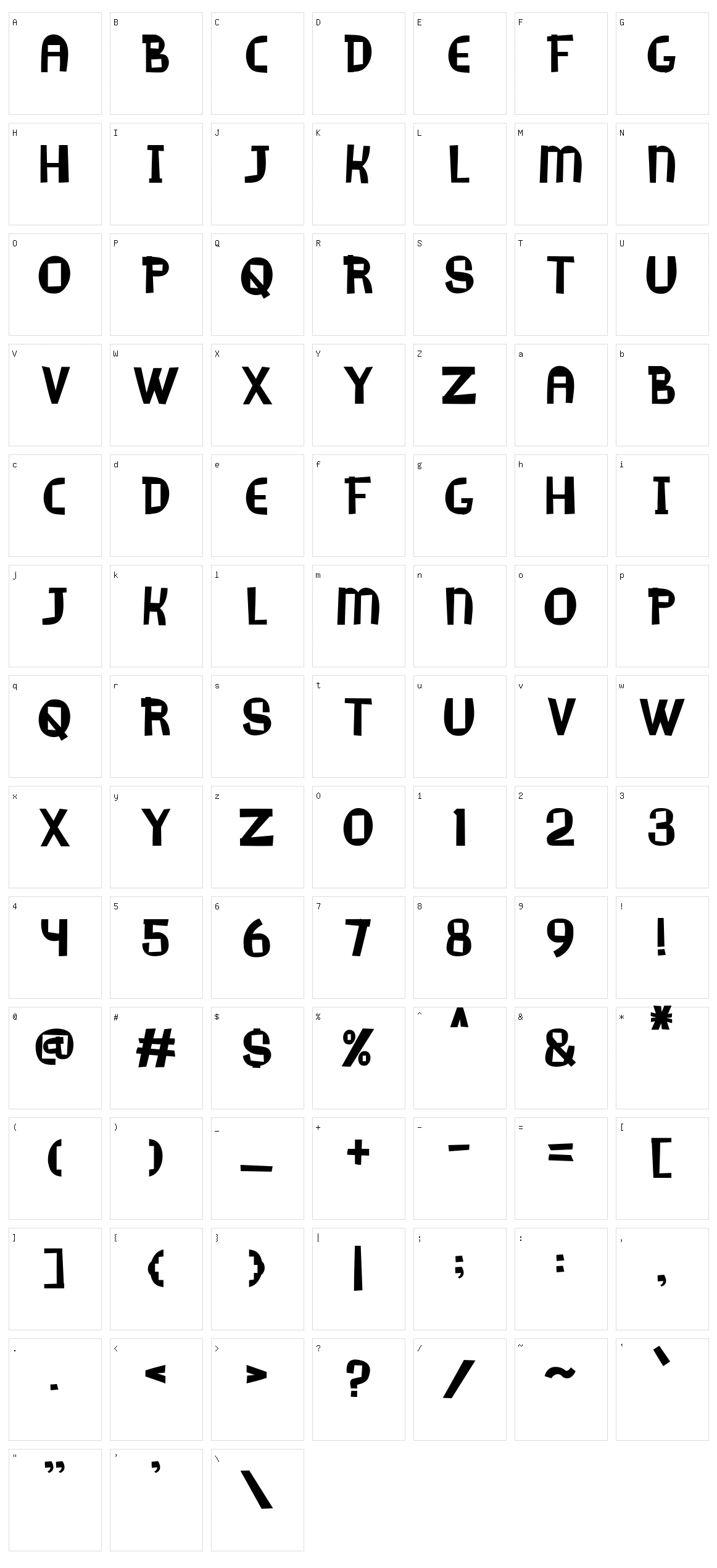
The free font Wakiki is carefully designed by Faqih Fawaji, showcasing a thoughtful balance of creativity and usability and falls under the Cartoon font style. When you download the ZIP file, it contains only 18.11 KB of font files, making it lightweight and quick to download. Please review the license details below to understand permitted usage and distribution rights. If license information is not available, we recommend using this font for personal projects only or contacting the author directly for commercial usage permissions.